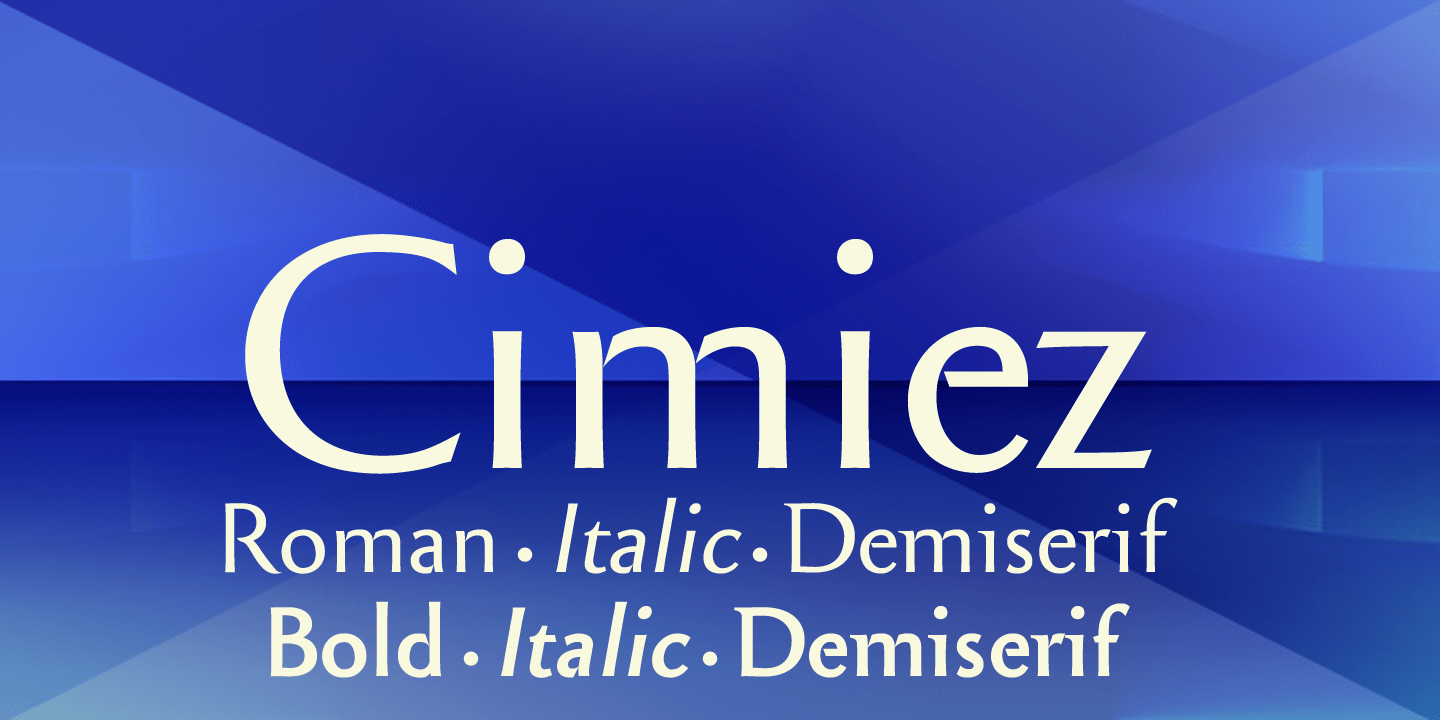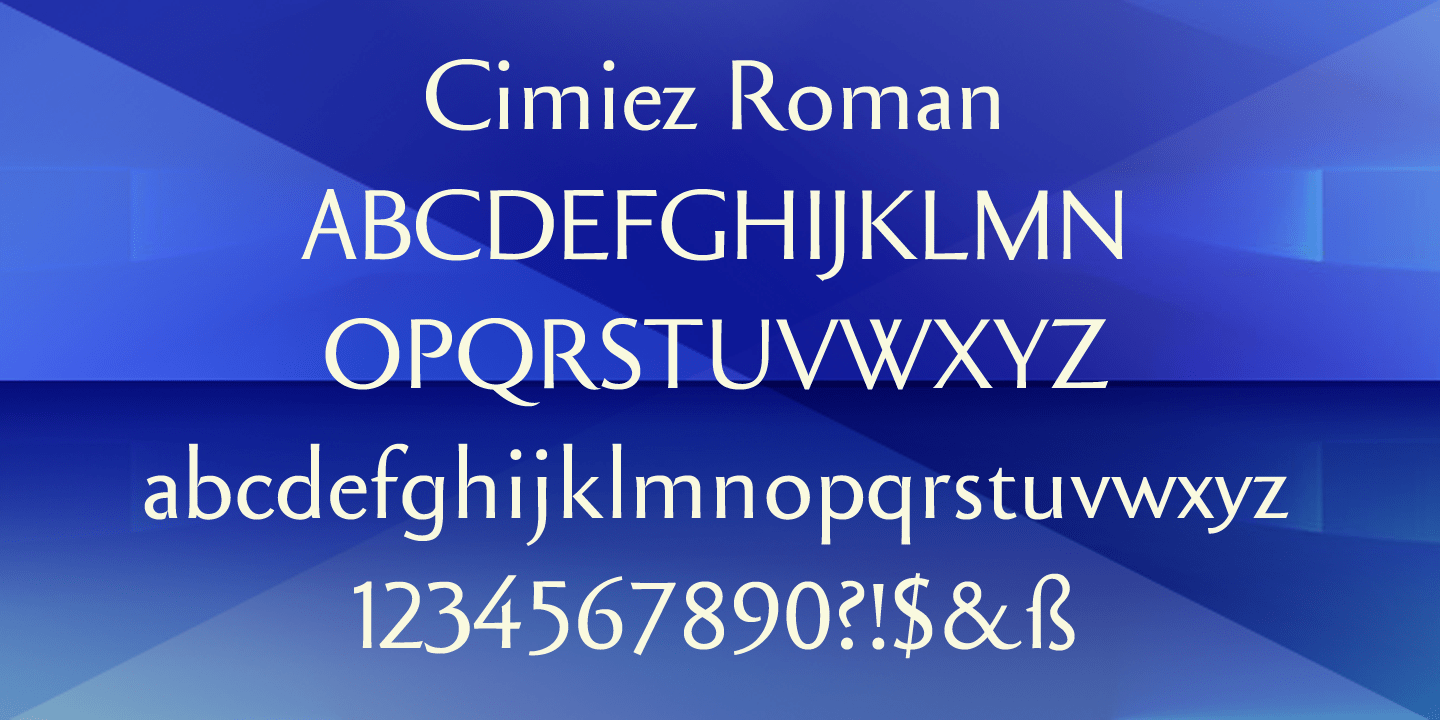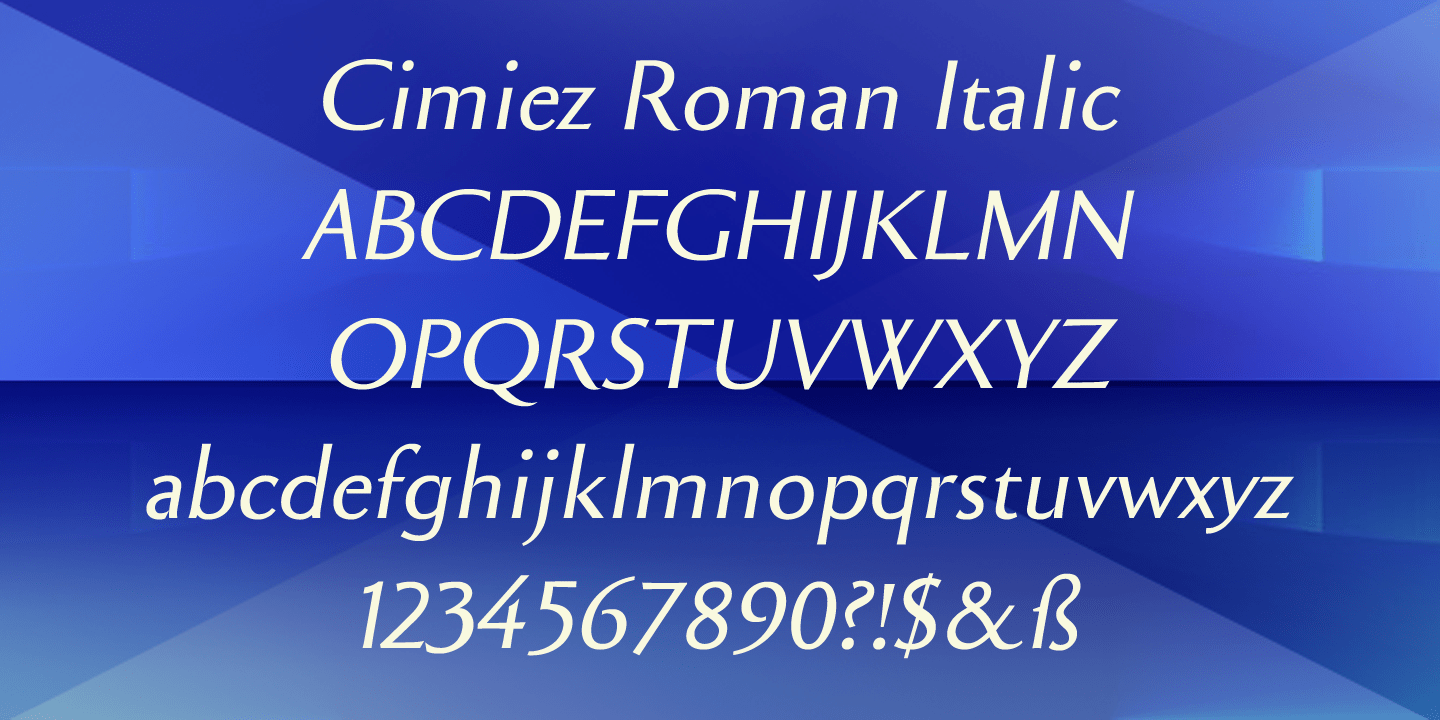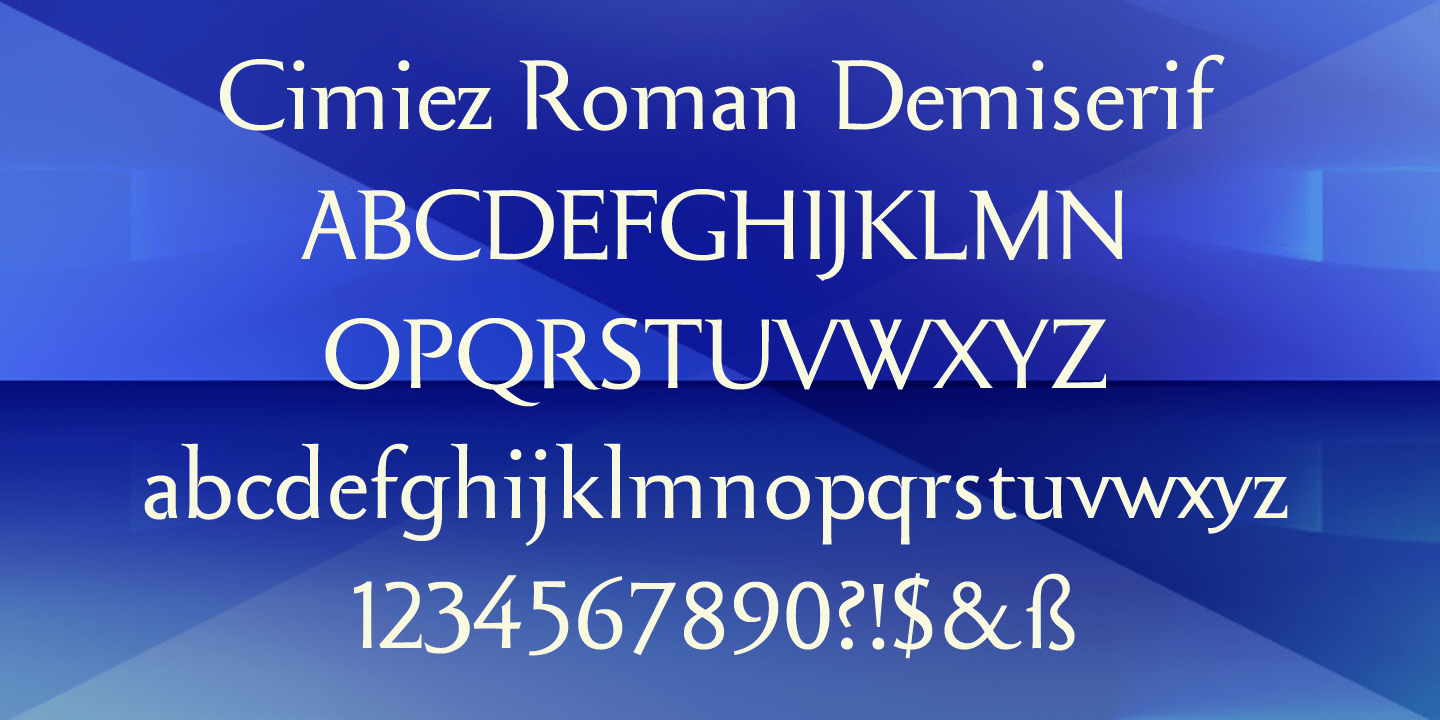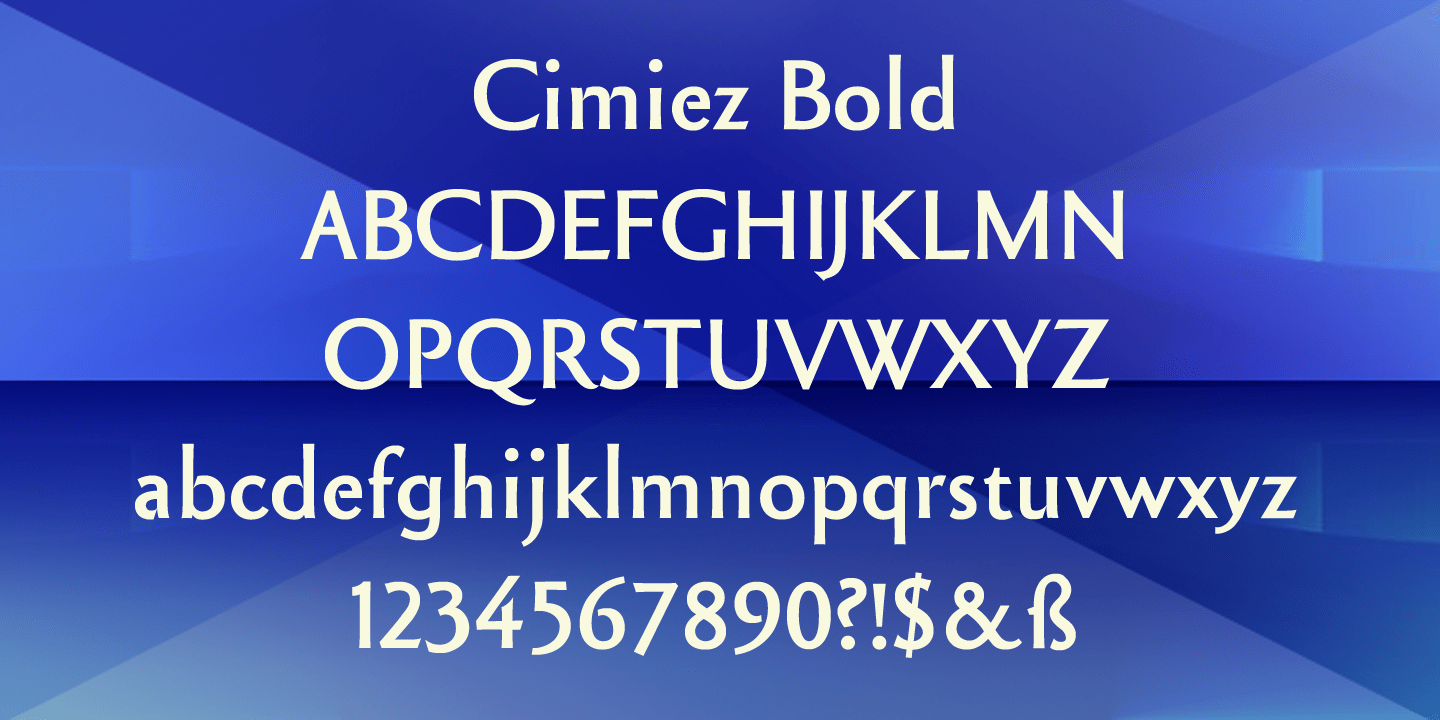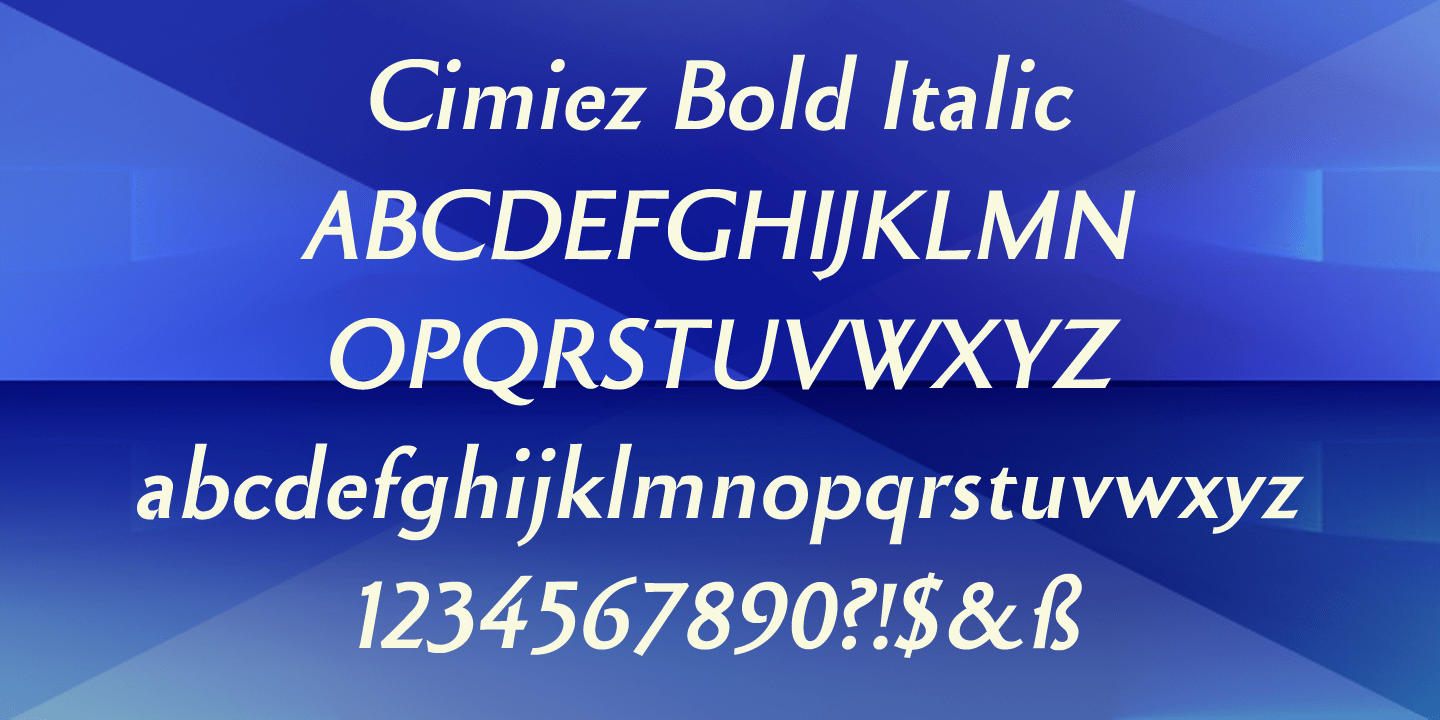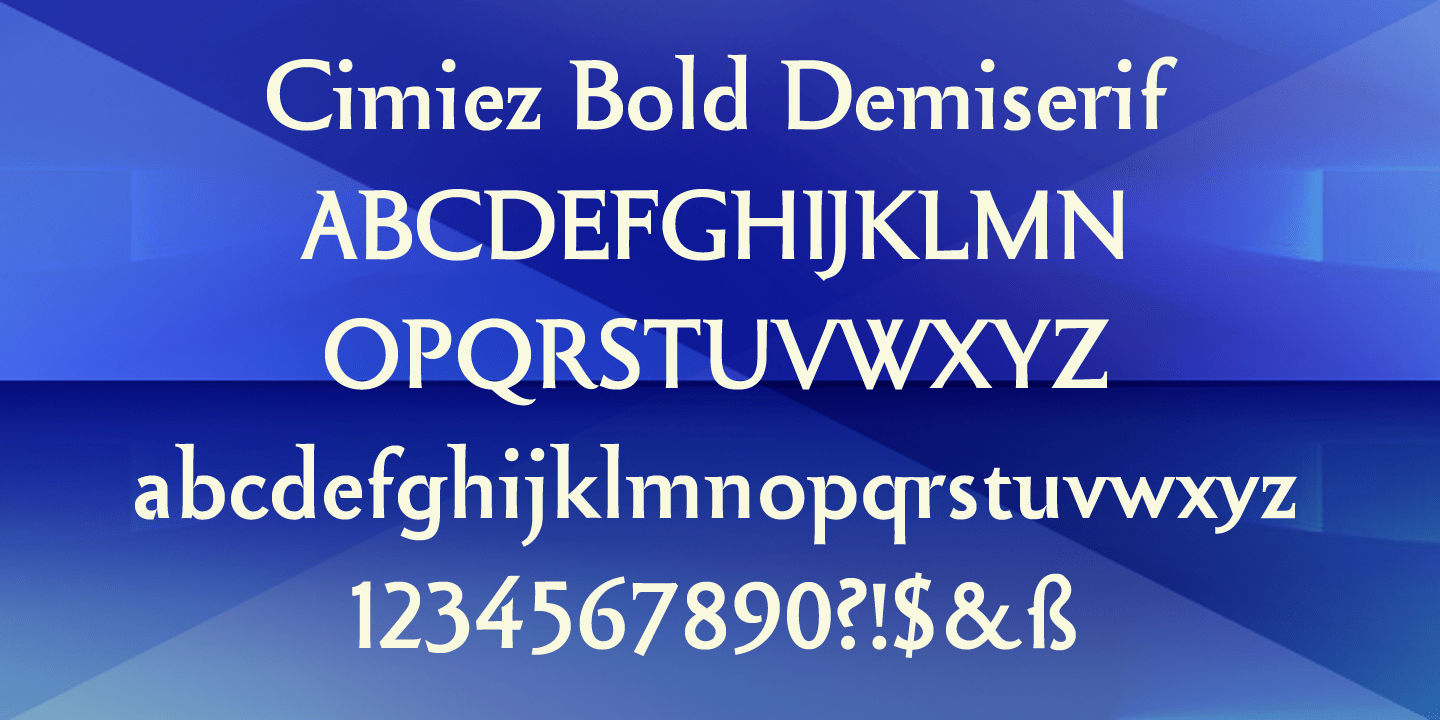
Cimiez
Font Family by Wiescher Design
Classical nineteenth century french engravers typeface, traditional with corners sharpened, a flick of the burin and a touch of Art Deco.